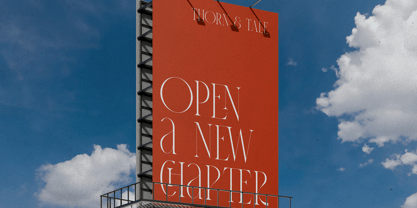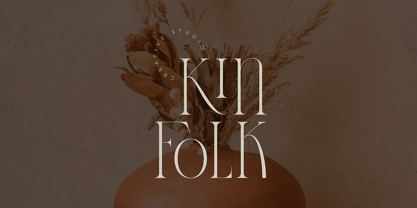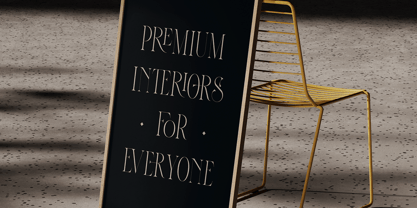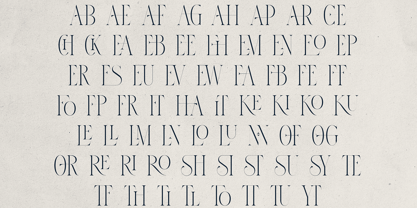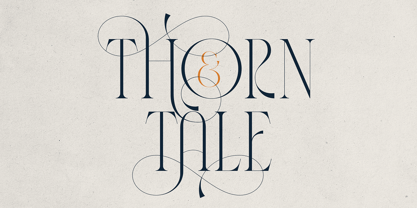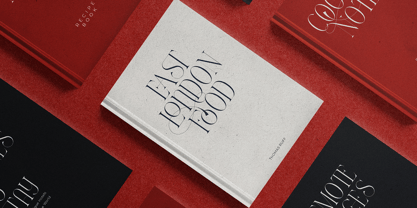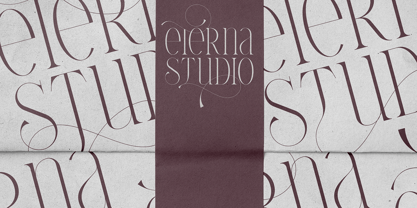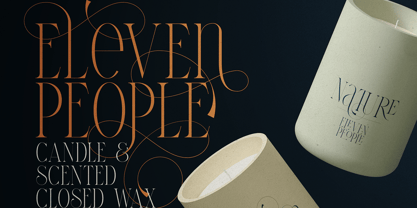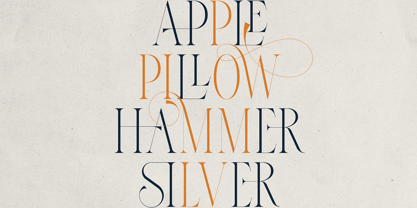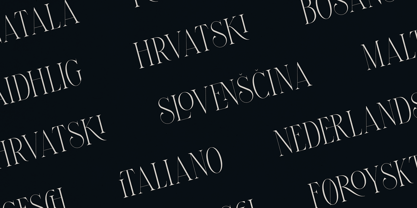
Thorn and Tale
by VP Creative Shop
The Thorn and Tale Font Family was designed by Vladimir Fedotov, Plamen Petrov and published by VP Creative Shop. Thorn and Tale contains 1 styles.
Thorn & Tale is a high-contrast serif font crafted with elegance and drama in mind. Designed for luxury branding, editorial design, packaging, and high-impact typographic statements, this typeface blends classic sophistication with modern expressiveness.
Designers: Vladimir Fedotov, Plamen Petrov
Publisher: VP Creative Shop
Foundry: VP Creative Shop